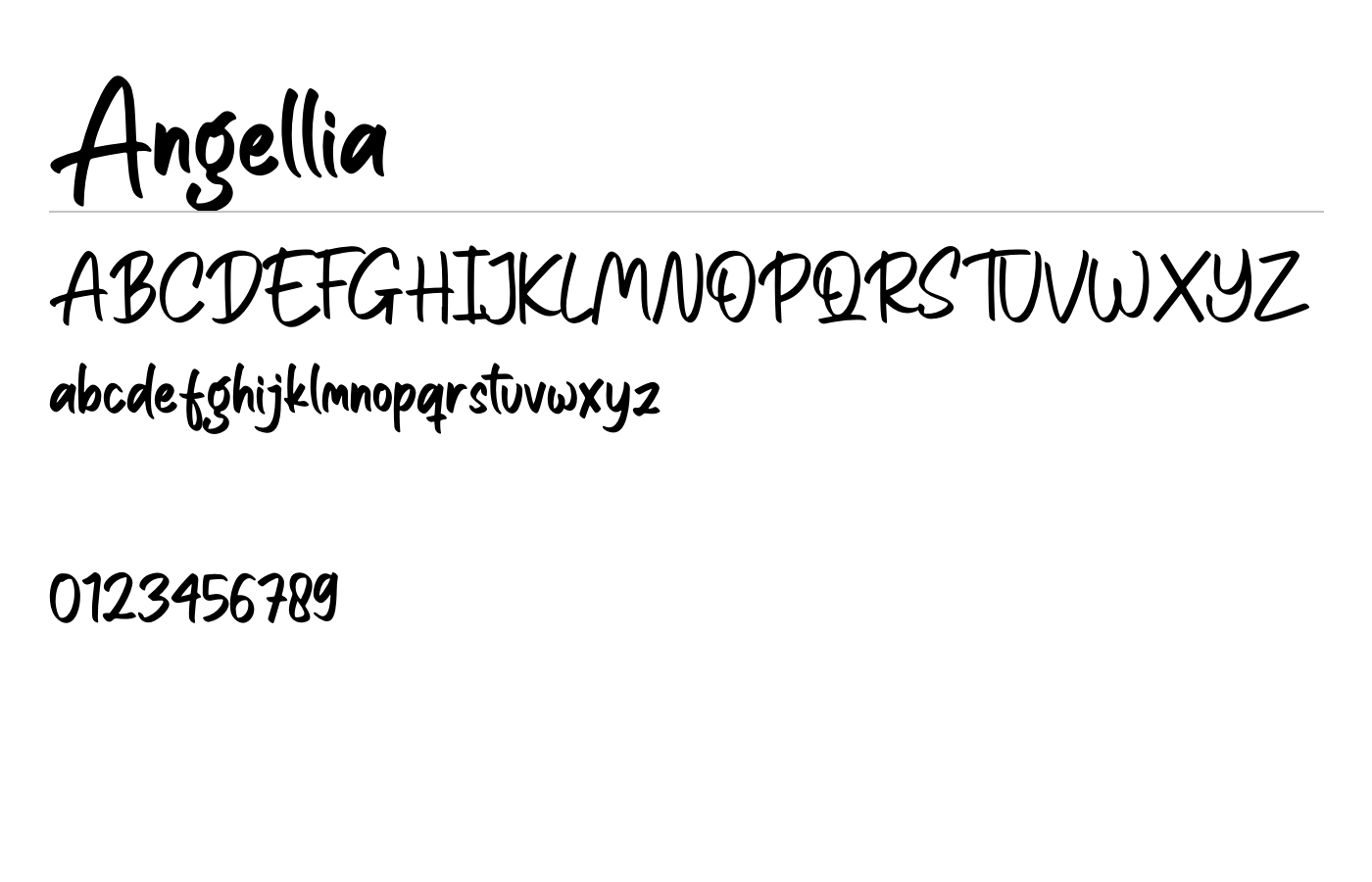
Angellia is a lively handwritten script font with a casual, friendly personality, featuring smooth, flowing strokes that feel natural and approachable. Its varied stroke weight and playful letterforms make it ideal for creative projects like personal branding, invitations, and informal headlines, adding a warm and personal touch. This font works well wherever a handwritten, authentic vibe is desired, bringing charm and individuality to your design.
Angellia Font
About Angellia Font
| Font family | Angellia Font |